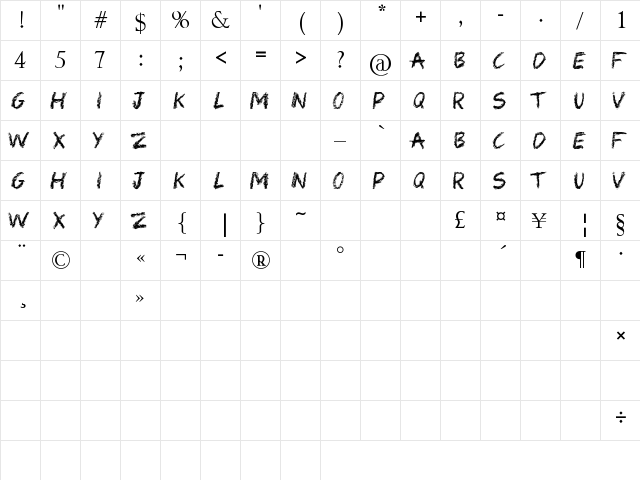
Colored Crayons Regular Font Preview
Colored Crayons Regular
Design Context for Colored Crayons Typeface
Colored Crayons is a composed and adaptable typeface that performs quietly and consistently across a wide range of design contexts.